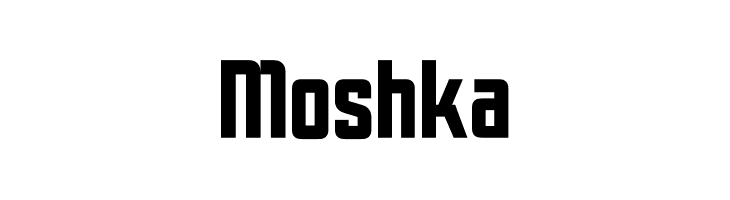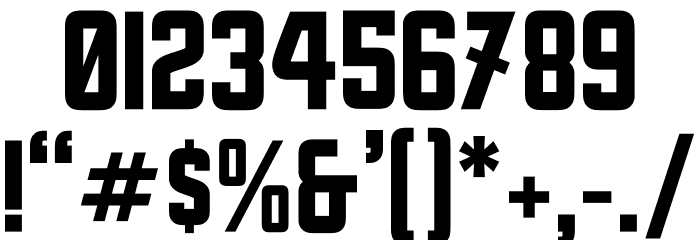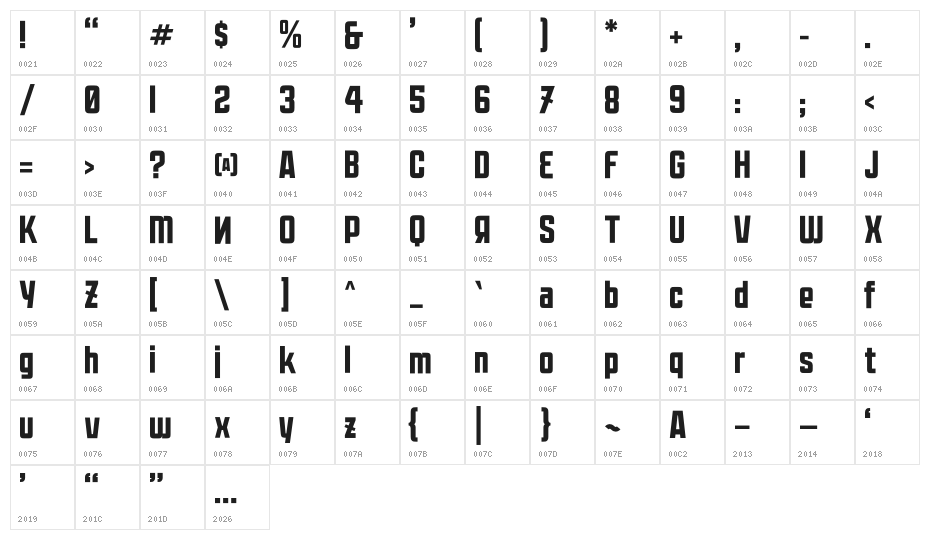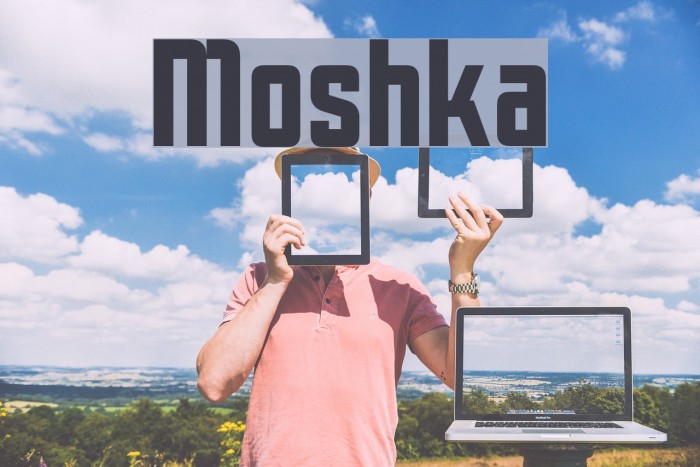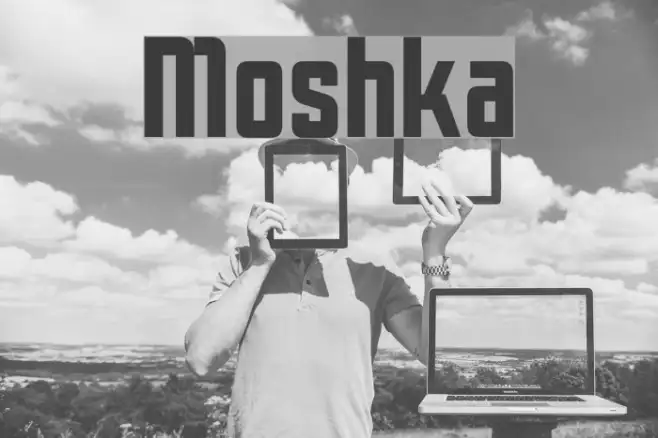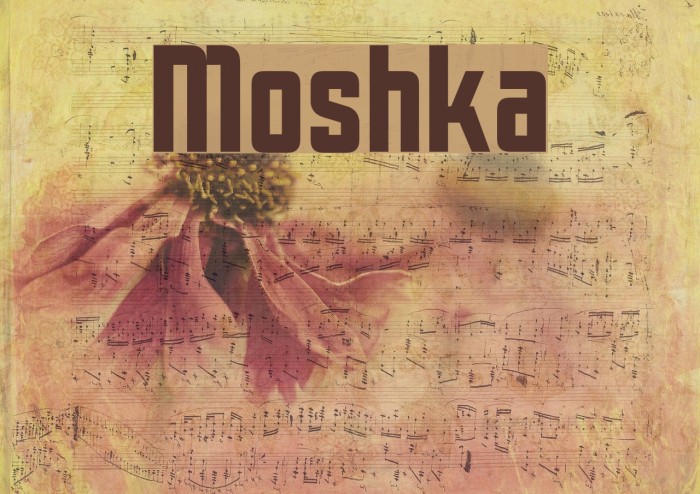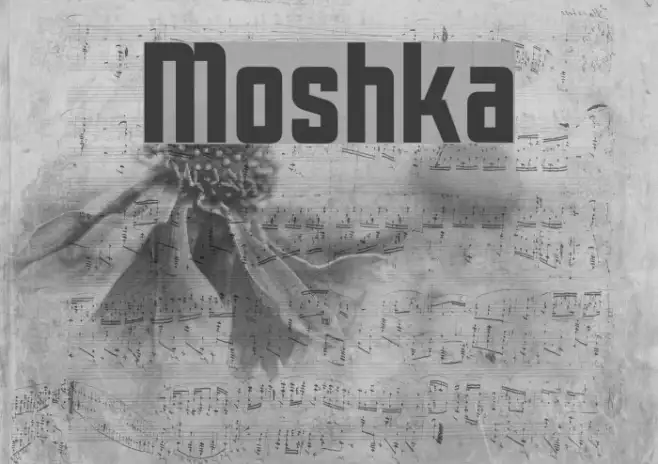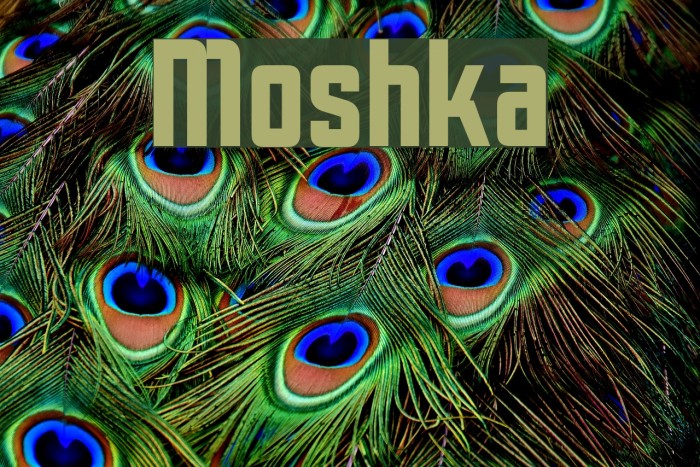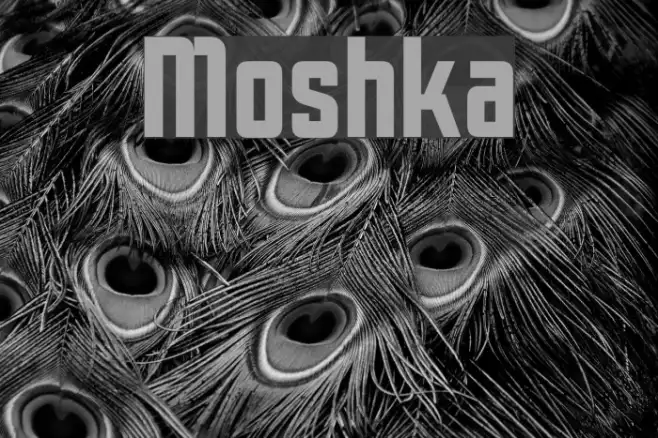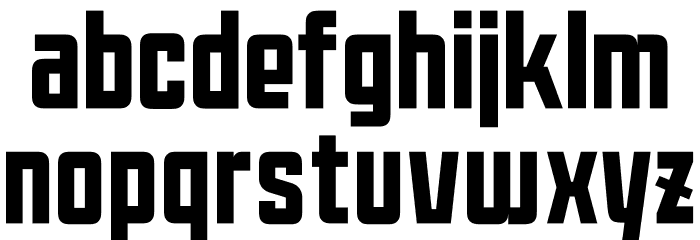
Moshka Font
Moshka Description
This font features a bold and assertive style with a strong geometric structure. The uppercase letters are tall and commanding, while the lowercase letters maintain a consistent height, providing a balanced appearance. The numerals are clear and easily distinguishable, making them suitable for various applications. Special characters are designed to complement the overall boldness of the font, ensuring readability and impact. The font's design is modern and versatile, making it ideal for projects that require a strong visual presence.
| Proposed Projects | Ideal for branding, headlines, posters, and advertising materials that require a strong visual impact. |